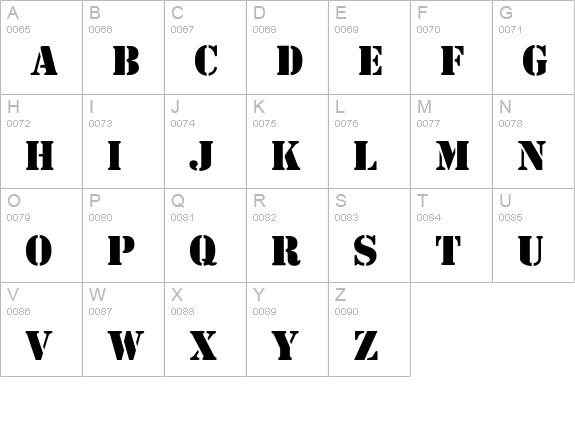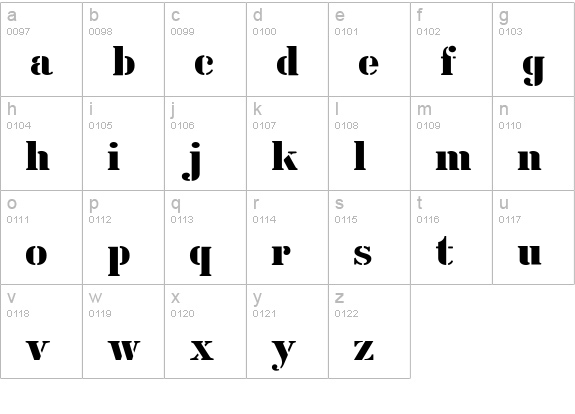
CutOutsFLF Font Details
CutOutsFLF is a free for personal use font in the Modern > Stencil category. It has been downloaded 27 times and is available for Windows, Mac and Linux.
CutOutsFLF is a stunning and unique font that brings a touch of creativity and artistry to any design project. With its intricate and handcrafted cutout style, this font is perfect for adding a dynamic and eye-catching element to logos, headlines, posters, and more. What sets CutOutsFLF apart is not only its visually striking appearance but also the fact that it is completely free to use. That's right, this font is freely available to download at FontsMarket.com, making it accessible to a wide range of designers and creatives. The intricate details and carefully crafted letterforms of CutOutsFLF make it a standout choice for anyone looking to make a bold statement with their typography. Whether you're working on a project for print or digital media, this font will add a unique and visually appealing element to your designs. The versatility of CutOutsFLF is another reason why it has become a popular choice among designers. Its clean and legible letterforms make it suitable for a variety of design styles and purposes. From elegant and sophisticated to edgy and modern, this font can adapt to suit any aesthetic. With its free availability and stunning design, CutOutsFLF is a must-have font for any designer's toolkit. Download it today from FontsMarket.com and elevate your designs with its unique and captivating style.